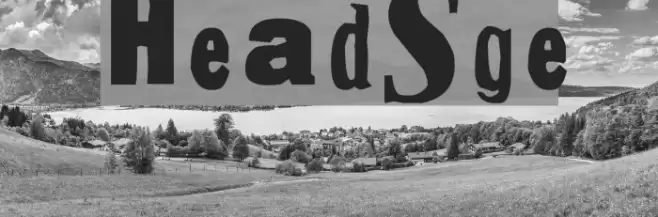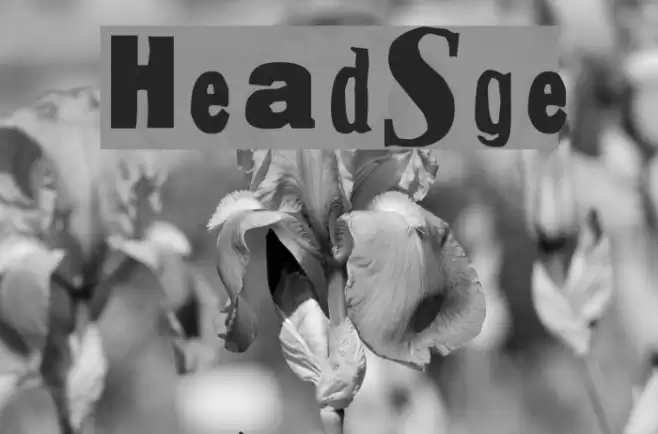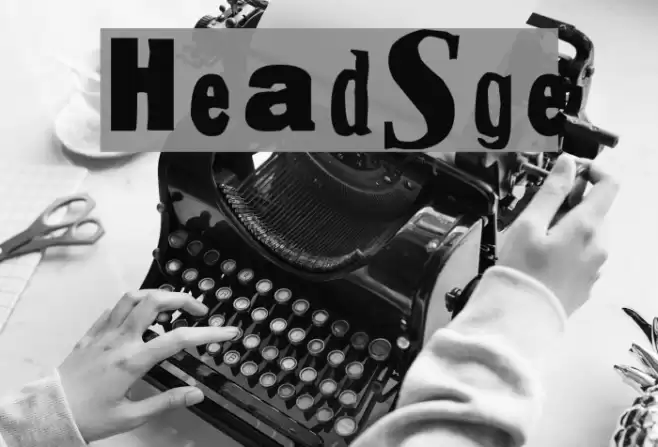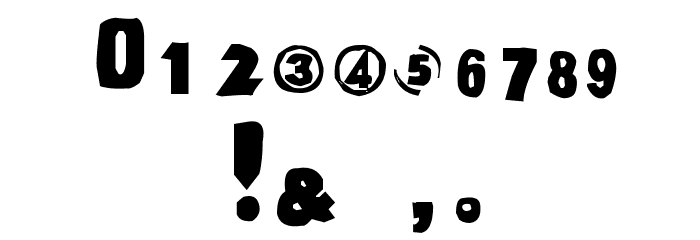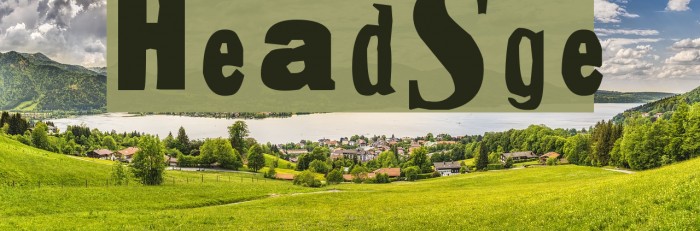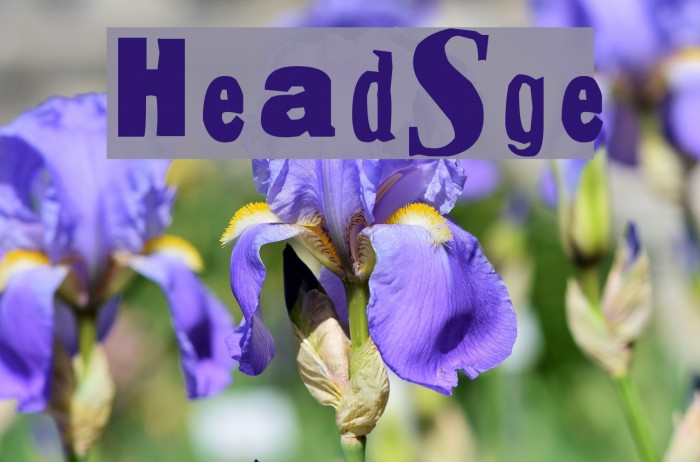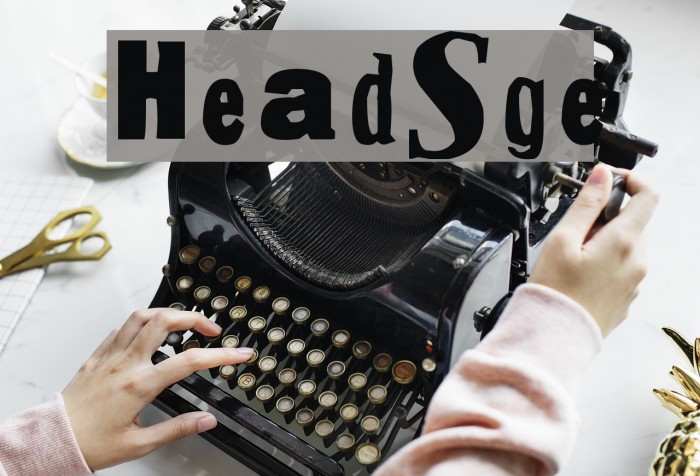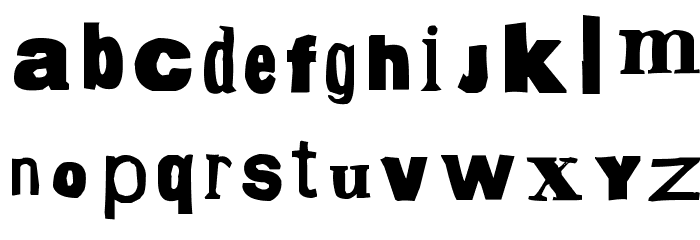
HeadSurgery Font
HeadSurgery Description
This font features a playful and eclectic design with a mix of bold and irregular shapes. Each character appears to have its own unique style, contributing to a whimsical and dynamic appearance. The uppercase letters are particularly varied, with some characters being tall and narrow while others are short and wide. The lowercase letters maintain this quirky aesthetic, creating a cohesive yet unpredictable look. Numbers and special characters follow the same design principles, adding to the font's overall charm. This font is ideal for projects that require a fun and unconventional touch.
A playful and eclectic font with bold, irregular shapes and unique character styles from Quirky fonts.
- Proposed Projects: Great for children's books, playful branding, posters, and creative invitations.